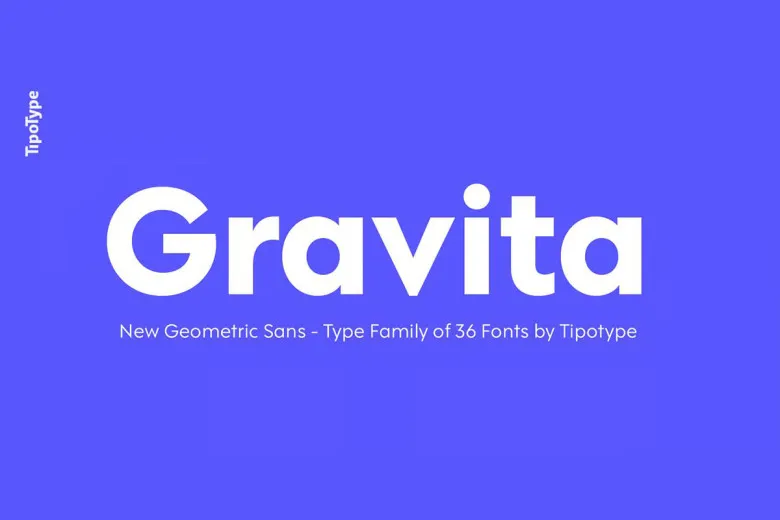
Gravita is a beautiful sans serif font that is elegant and timeless but straightforward to read. Gravita Typeface Family confers respect and assurance.
Gravita Sans Serif Font